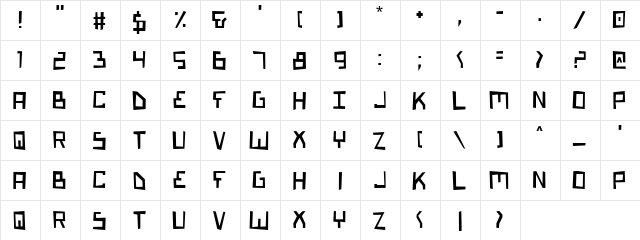
Bionic Type Malfunction Regular
Design Context for Bionic Type Malfunction Typeface
Bionic Type Malfunction trades formality for fun, with bouncy, characterful letterforms that bring warmth and energy to any project.
Font Pairing: Pairs well with a rounded or humanist sans for body copy, maintaining the friendly tone without relying on Bionic Type Malfunction to carry extended reading.
Pro Tip: Use Bionic Type Malfunction at larger display sizes where its expressive character can land. Pair with a clean, simple sans for body copy to maintain readability.